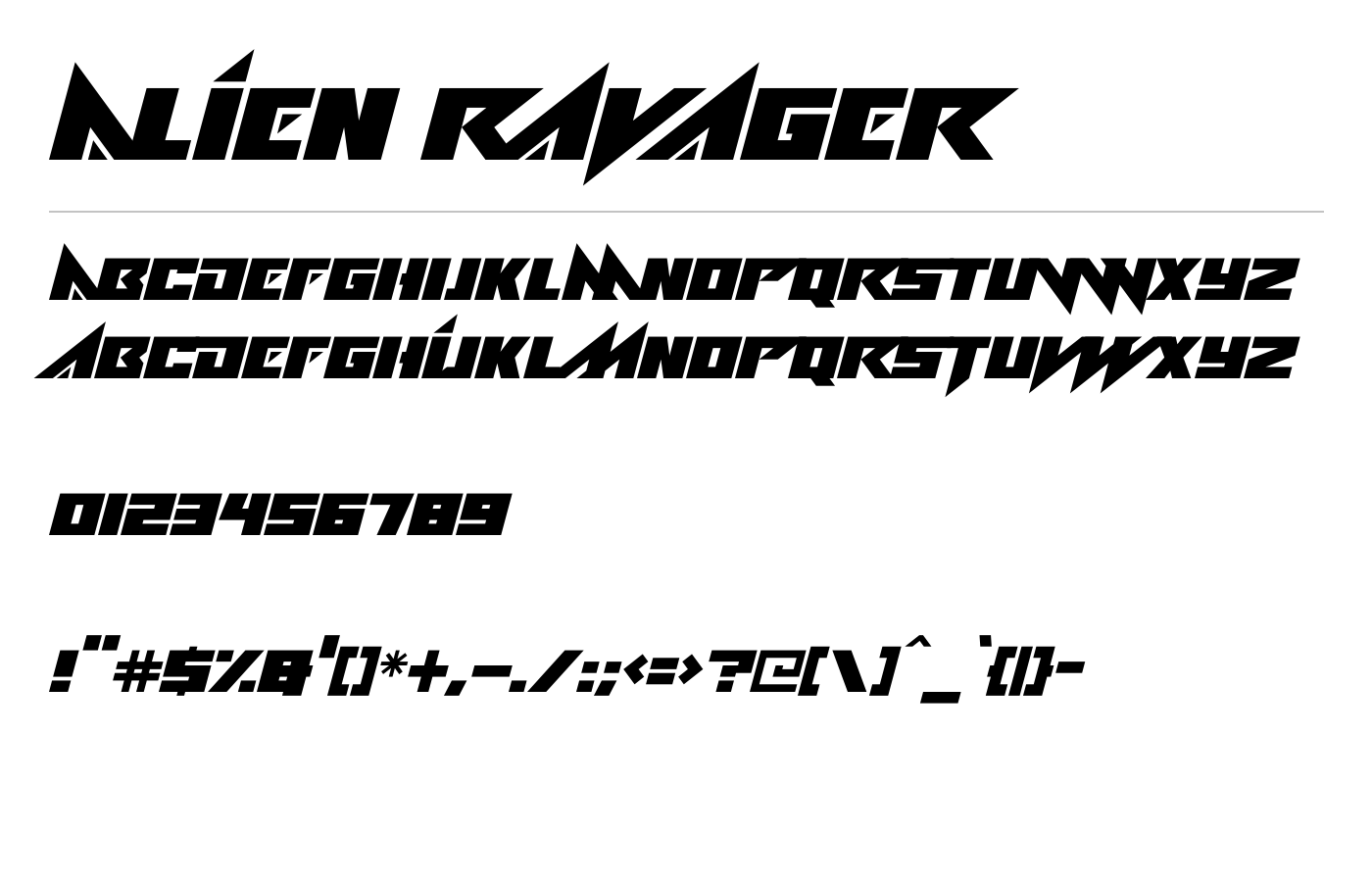
Alien Ravager is a bold, angular display font with sharp, geometric edges and a futuristic vibe. Its condensed uppercase letters and dynamic slant give it a strong, aggressive personality, making it perfect for sci-fi themes, gaming logos, or edgy branding that demands attention. This font works best in headlines or logos where impact and distinctiveness are key.
Alien Ravager Font
About Alien Ravager Font